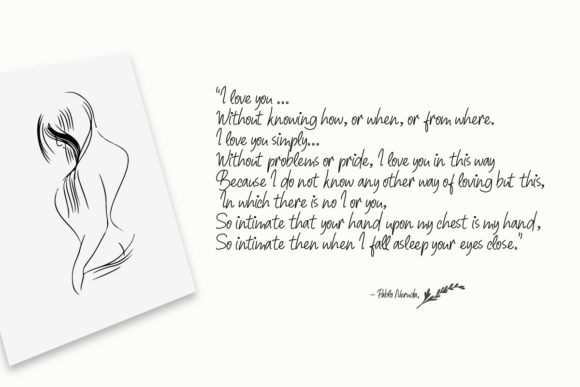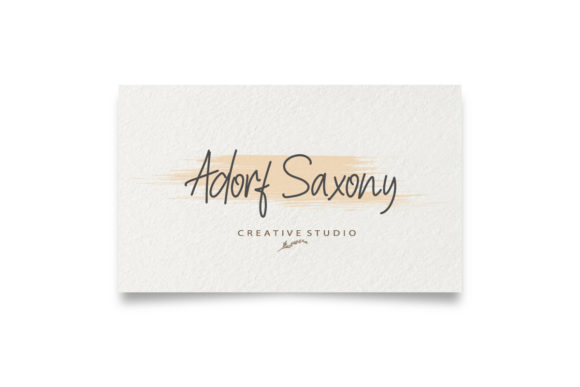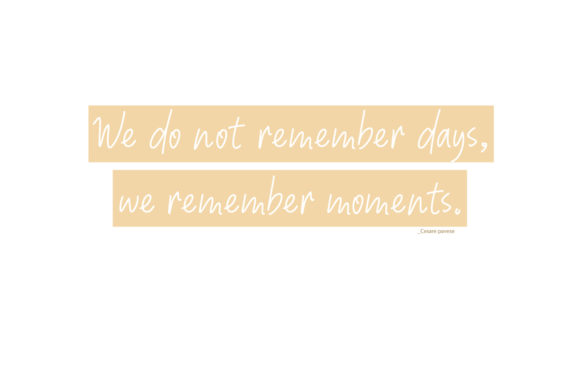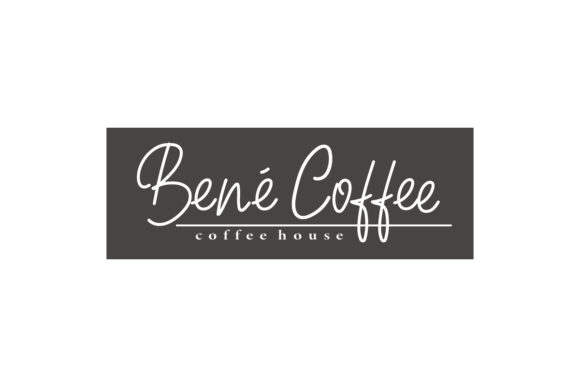
Shafira Font
About Shafira Font
Shafira is a casual handwritten font. Get inspired by its authentic elements and add a touch of elegance to any design project!